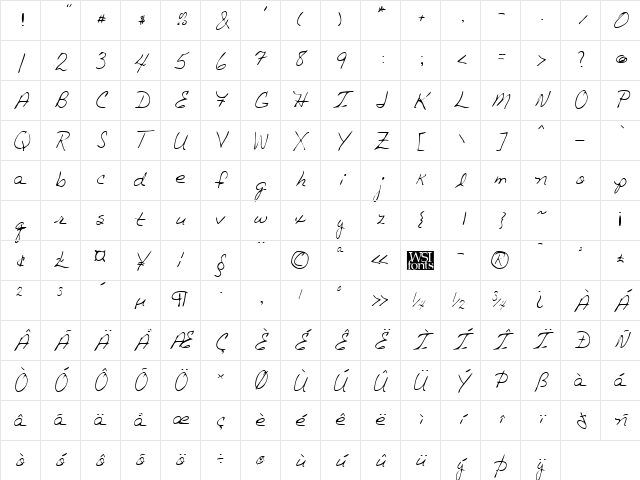
TashasHand Regular Free Font
TashasHand Regular
TashasHand Family
Complete TashasHand Regular glyph index. Displaying only characters natively supported by TashasHand Regular font.
Design Context for TashasHand
TashasHand flows with the natural rhythm of handwritten lettering, making it ideal for designs that call for warmth and personal expression.
Font Pairing: Combine TashasHand with a simple geometric sans for maximum contrast - the tension between flowing curves and clean structure is a classic typographic pairing.
Pro Tip: Use TashasHand for short runs of text - names, titles, or taglines. Extended body copy in script faces tires the eye quickly.